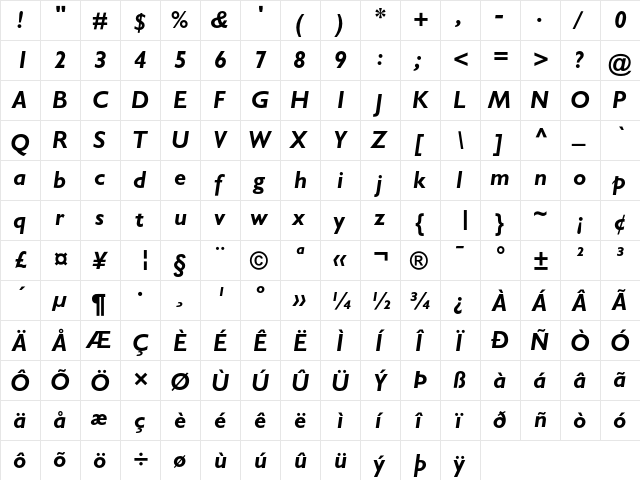
Gill Sans Bold Italic
Design Context for Gill Sans Typeface
Gill Sans is a composed and adaptable typeface that performs quietly and consistently across a wide range of design contexts. Its italic angle brings a sense of urgency and motion to the letterforms. The heavy weight commands attention and anchors typographic hierarchies.
Pro Tip: Use Gill Sans for emphasis, pull quotes, and subheadings where its slanted energy can add rhythm to the layout.